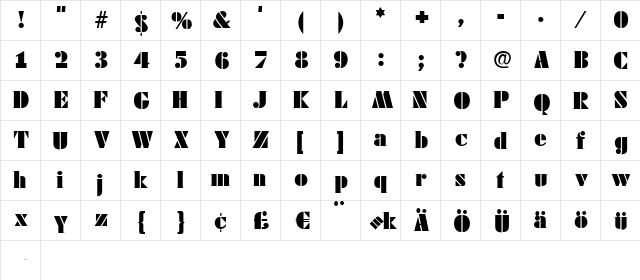
FutstencilSerif Regular Font Preview
FutstencilSerif Regular
Design Context for FutstencilSerif Typeface
FutstencilSerif has the rough pragmatism of spray-painted stencil signage, adding a raw, street-level authenticity to designs.
Ideal for industrial branding, streetwear, military-adjacent aesthetics, and urban signage projects.
Pro Tip: Pair FutstencilSerif with raw, utilitarian design elements — exposed concrete textures, flat colour, and minimal ornamentation suit it well.